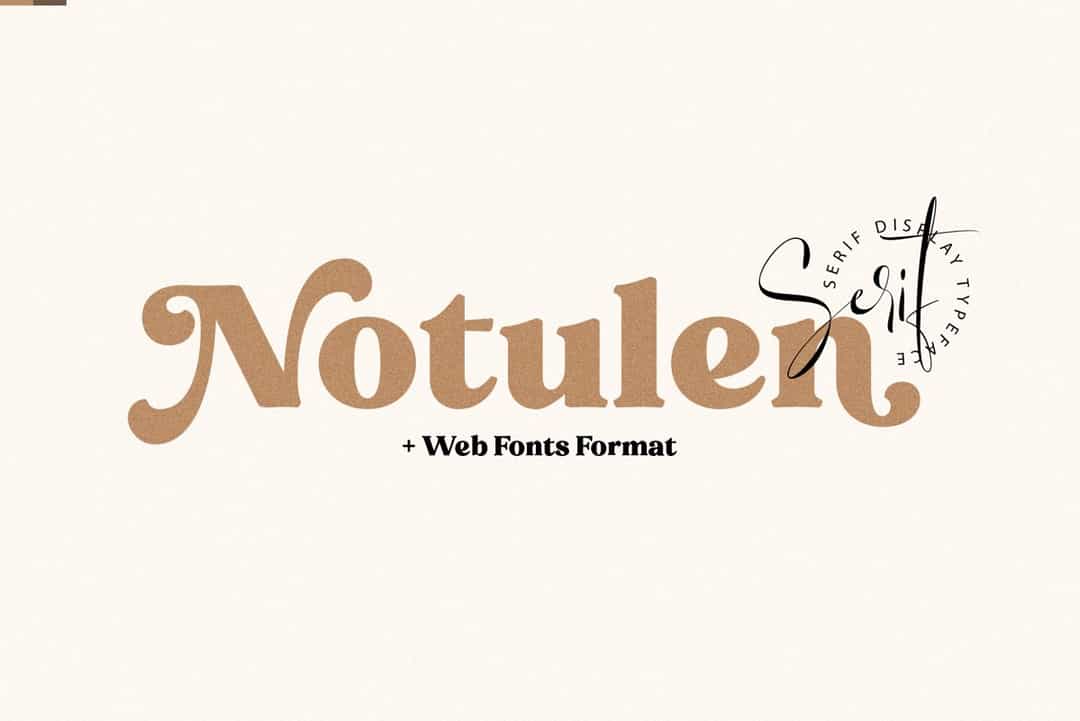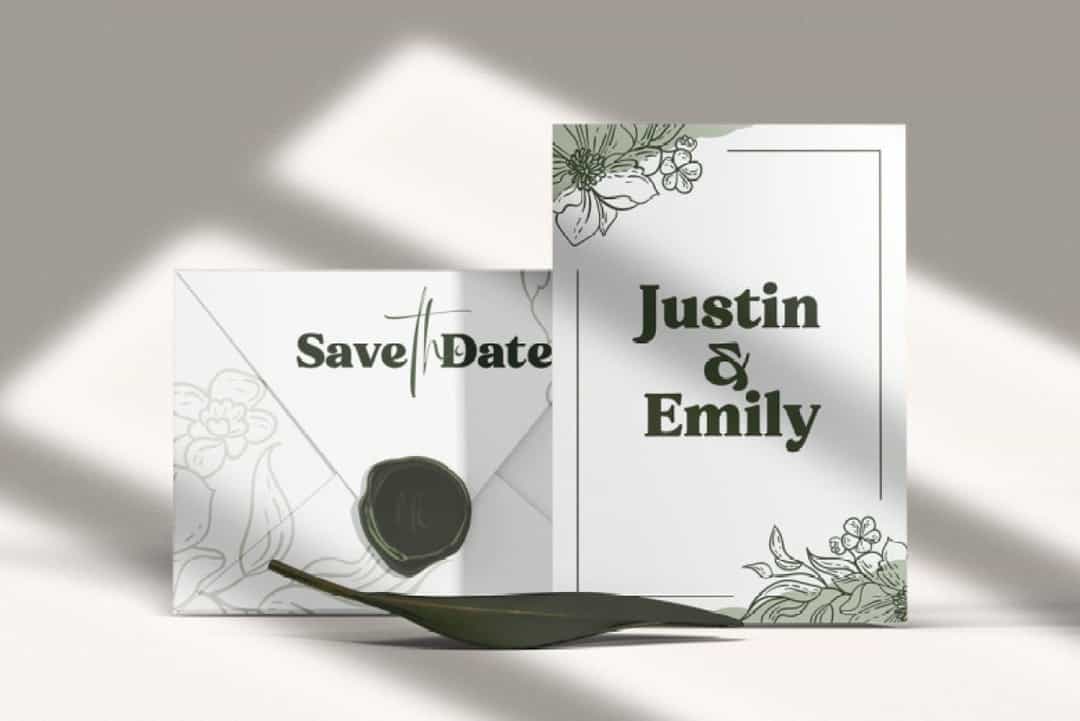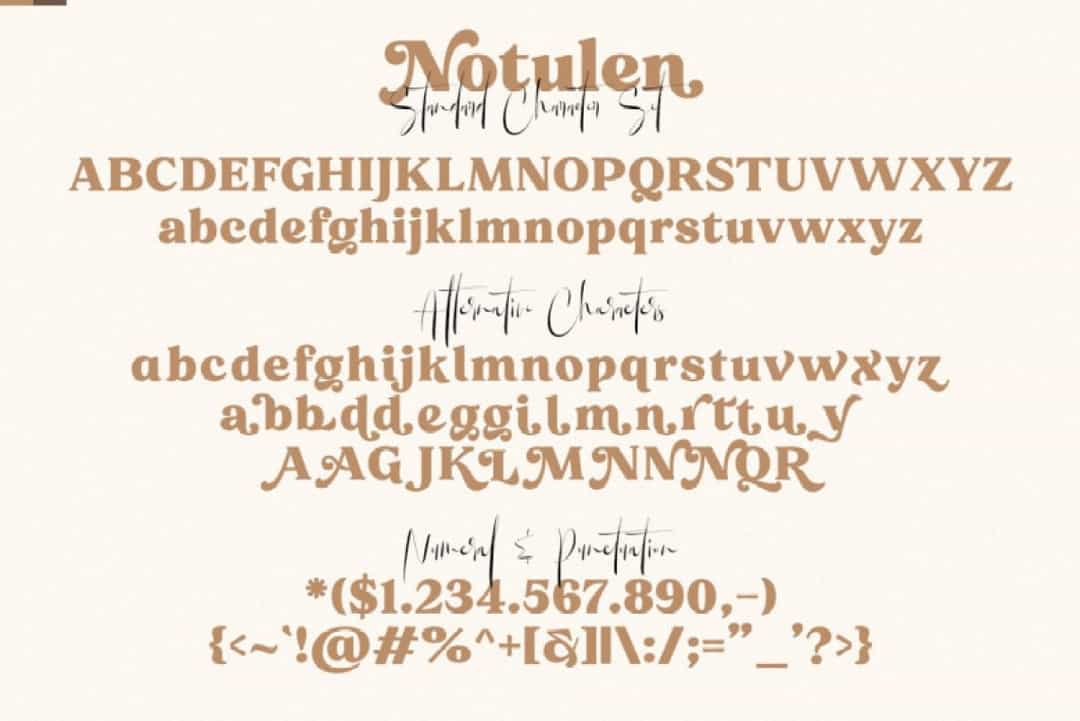
Notulen is a Serif Display Font which has an Extra Bold style and has a good contrast in curves. Inspired by Classic typography and today’s modern serif fonts, Notulen has small serifs with slightly rounded corners to help this font appear clear even at smaller sizes.